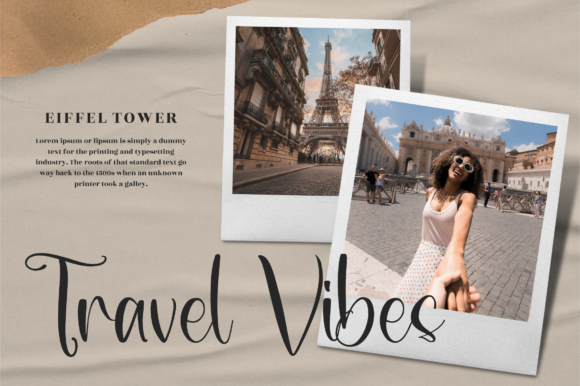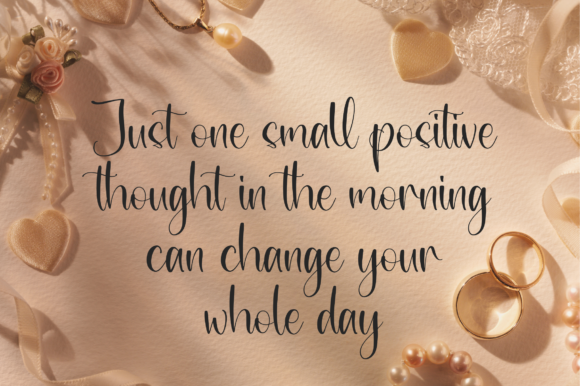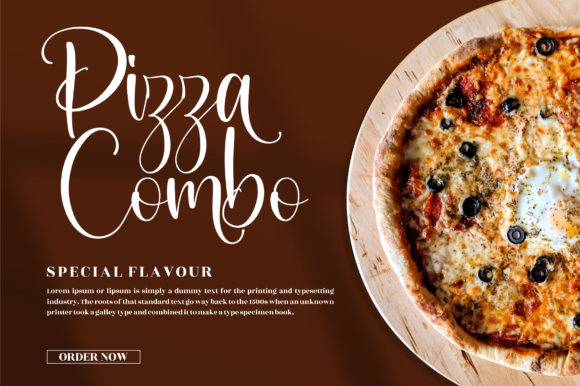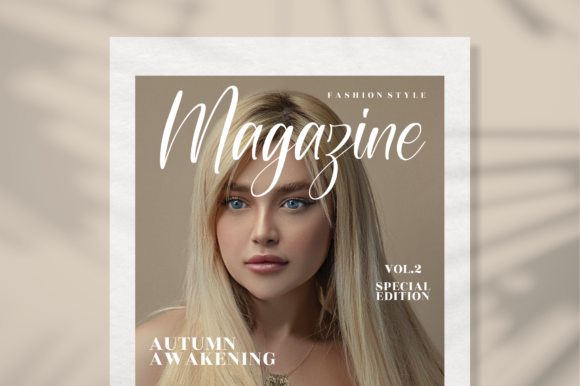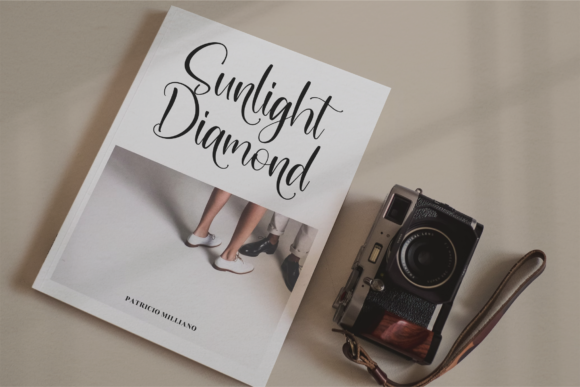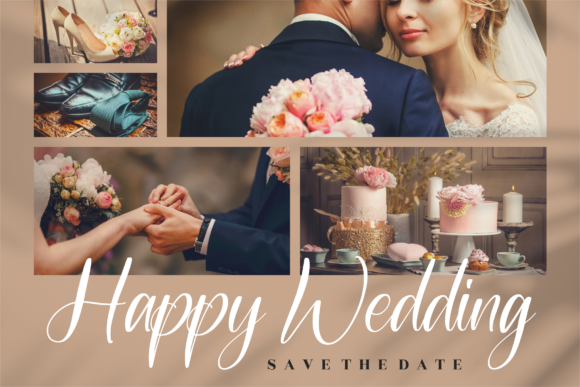
Unleashing the Elegance of Beautyca California Font
Have you ever found yourself staring at a blank page, trying to come up with the perfect design concept, only to be halted by the lack of the perfect font? It’s a frustrating feeling, but one that’s easily overcome with the right tool. For designers seeking a touch of sophistication and refinement, the Beautyca California Font is the perfect solution.
This lovely script font is designed to evoke feelings of elegance and class, making it an ideal choice for designers who want to add a touch of luxury to their projects. With its delicate lines and refreshing aesthetic, the Beautyca California Font is sure to make a lasting impression. And with its PUA encoding, accessing the amazing glyphs and ligatures is a breeze, giving designers the creative freedom they need to bring their vision to life.
- Unique Characteristics: Beautyca California Font is designed to evoke the spirit of California, with a blend of modern and vintage elements, featuring a clean, elegant, and sophisticated aesthetic.
- Kerning and Ligatures: The font includes advanced kerning and ligature features, ensuring smooth and seamless text rendering.
Beautyca California Font Review
Overall, I was excited to dive into the Beautyca California Font, but I must say it’s a bit of a mixed bag. Here’s what I think works well and what could be improved.
- The font’s modern, casual feel is perfect for creating a relaxed, California-inspired vibe.
- The letterforms are clean and elegant, making it a great choice for headings and titles.
- The font comes in a range of weights, from light to bold, giving you plenty of flexibility for different design projects.
- The font’s readability suffers at smaller sizes, which can make it difficult to use for body text.
- The lack of italics and obliques can limit its use in certain design contexts.
- The font’s personality is a bit too ” California” for my taste, which may not appeal to everyone.
Overall, the Beautyca California Font is a solid choice for projects that require a modern, casual feel. However, its limitations may make it less versatile than other fonts on the market.
For optimal results, use the Beautyca California Font in headings and titles to create a sophisticated and elegant look. This font is particularly well-suited for creative industries, such as graphic design, photography, and fashion.
The Beautyca California Font is commonly used in:
- Logo design
- Brochure and flyer design
- Photography and videography branding
Alternatives to Beautyca California Font
The Beautyca California Font is a unique and elegant script font. However, for designers looking for alternatives, here are a few options:
Great Vibes is a modern calligraphy script font that is perfect for creating a relaxed and casual atmosphere. It is ideal for use in branding, invitations, and social media graphics. Compared to Beautyca California Font, Great Vibes has a more laid-back feel and is more versatile in its application.
Carolyna Pro is a beautiful and elegant script font that is perfect for creating a luxurious and sophisticated atmosphere. It is ideal for use in high-end branding, packaging, and advertising. Compared to Beautyca California Font, Carolyna Pro has a more refined and polished feel, making it suitable for more formal applications.
Alex Brush is a elegant and sophisticated script font that is perfect for creating a high-end and luxurious atmosphere. It is ideal for use in branding, invitations, and packaging. Compared to Beautyca California Font, Alex Brush has a more refined and polished feel, making it suitable for more formal applications.